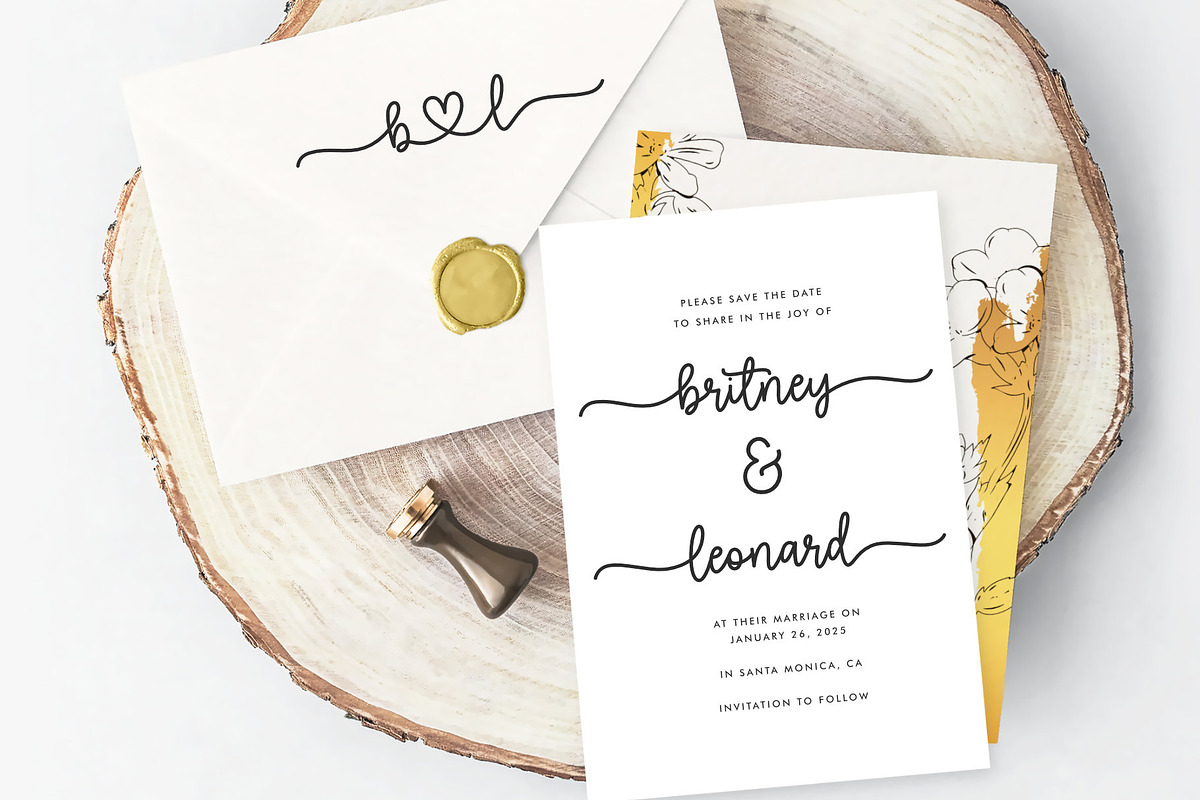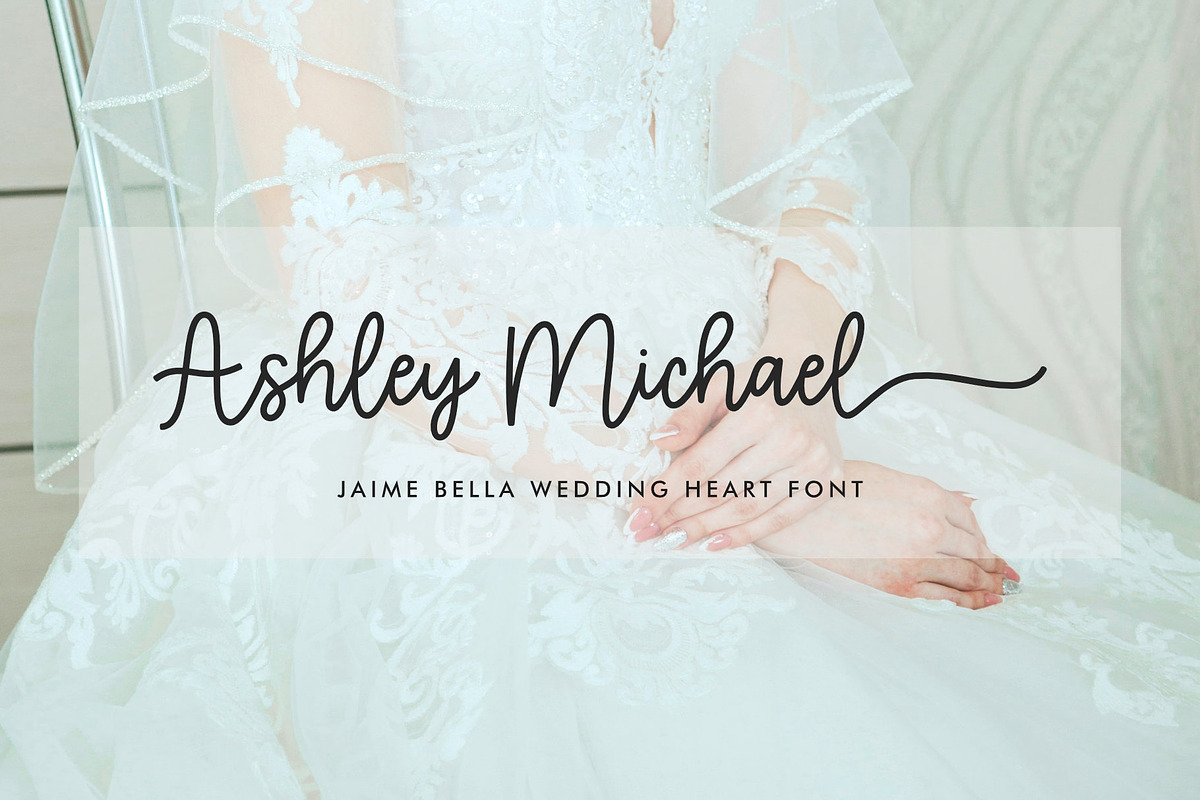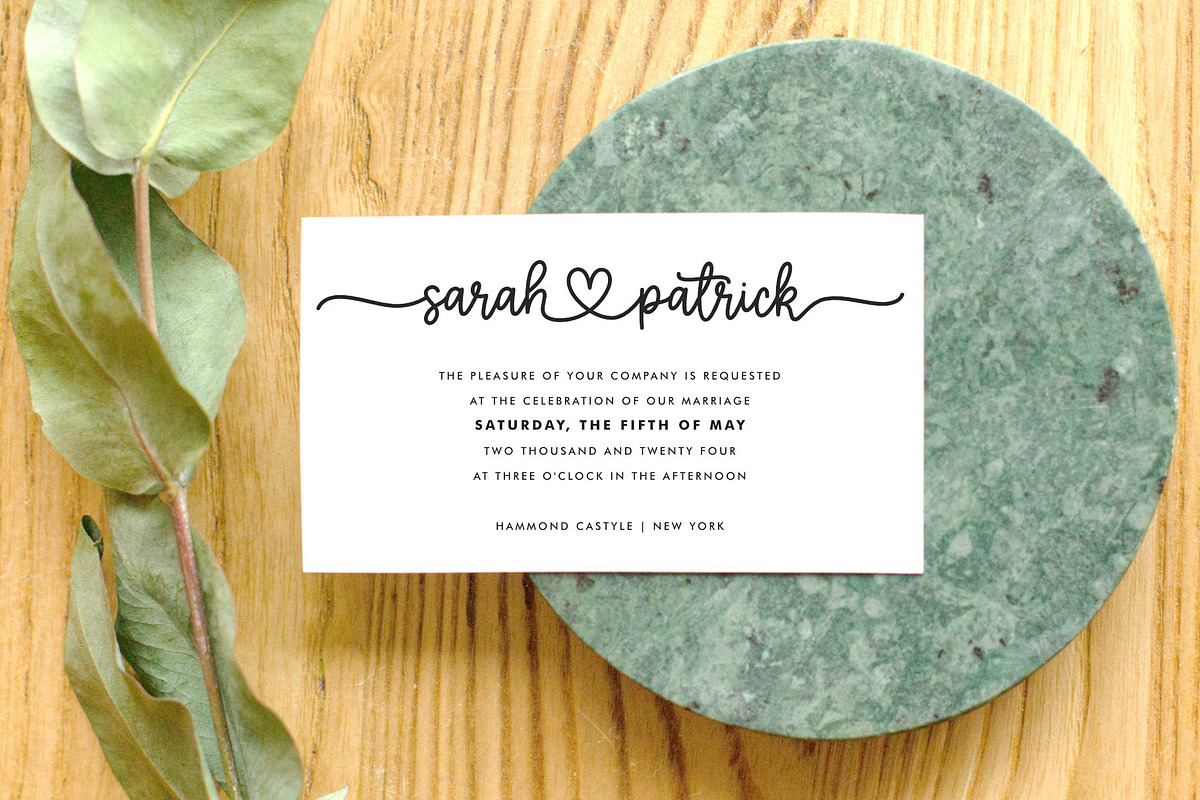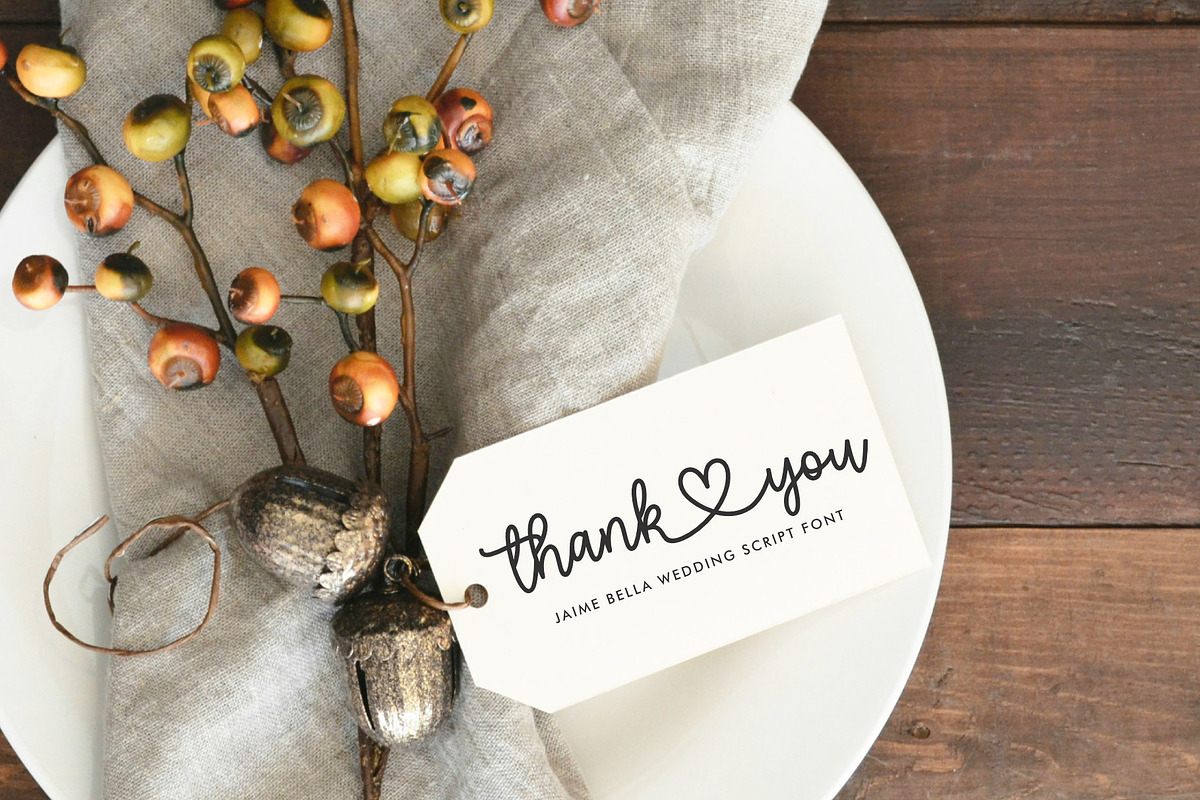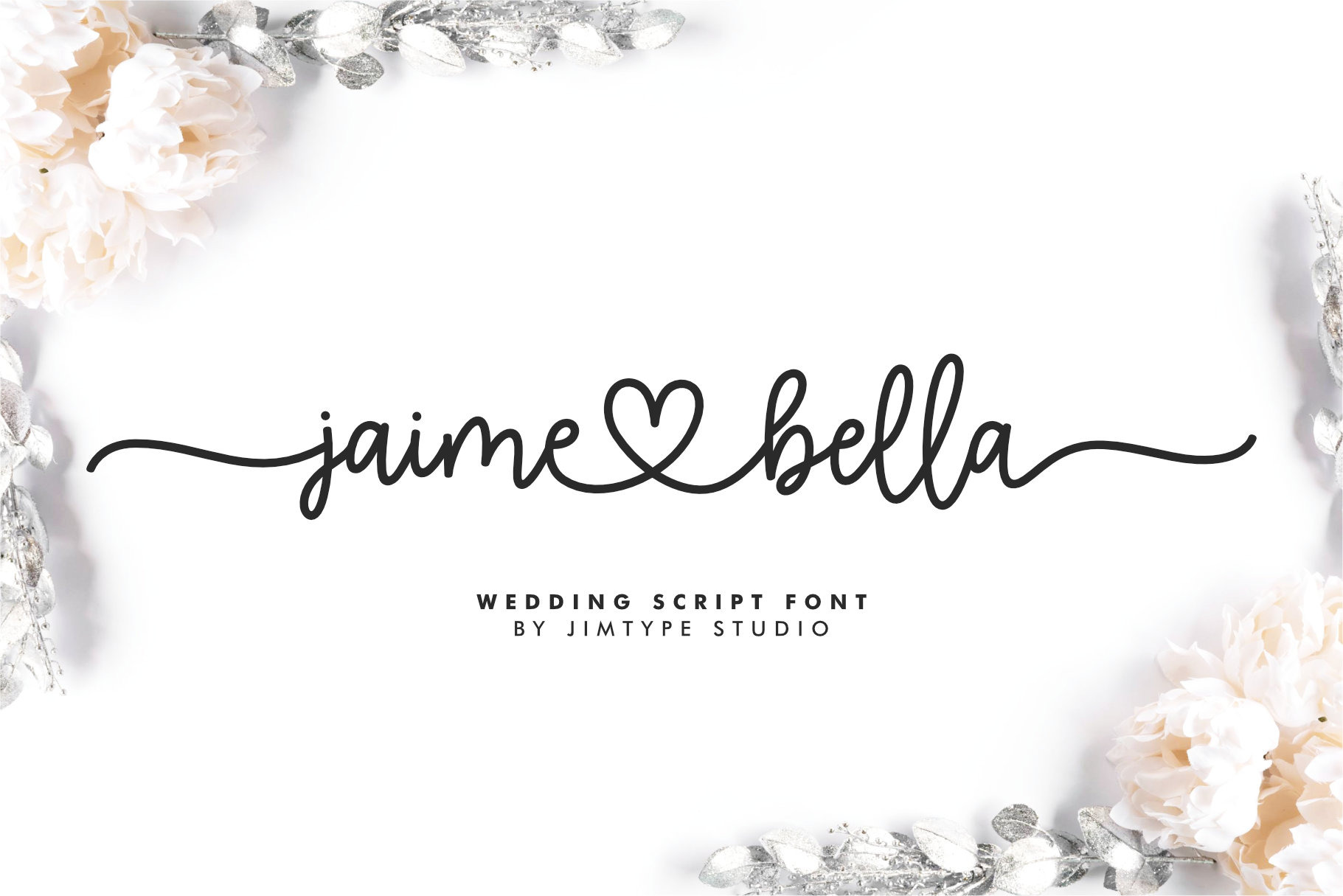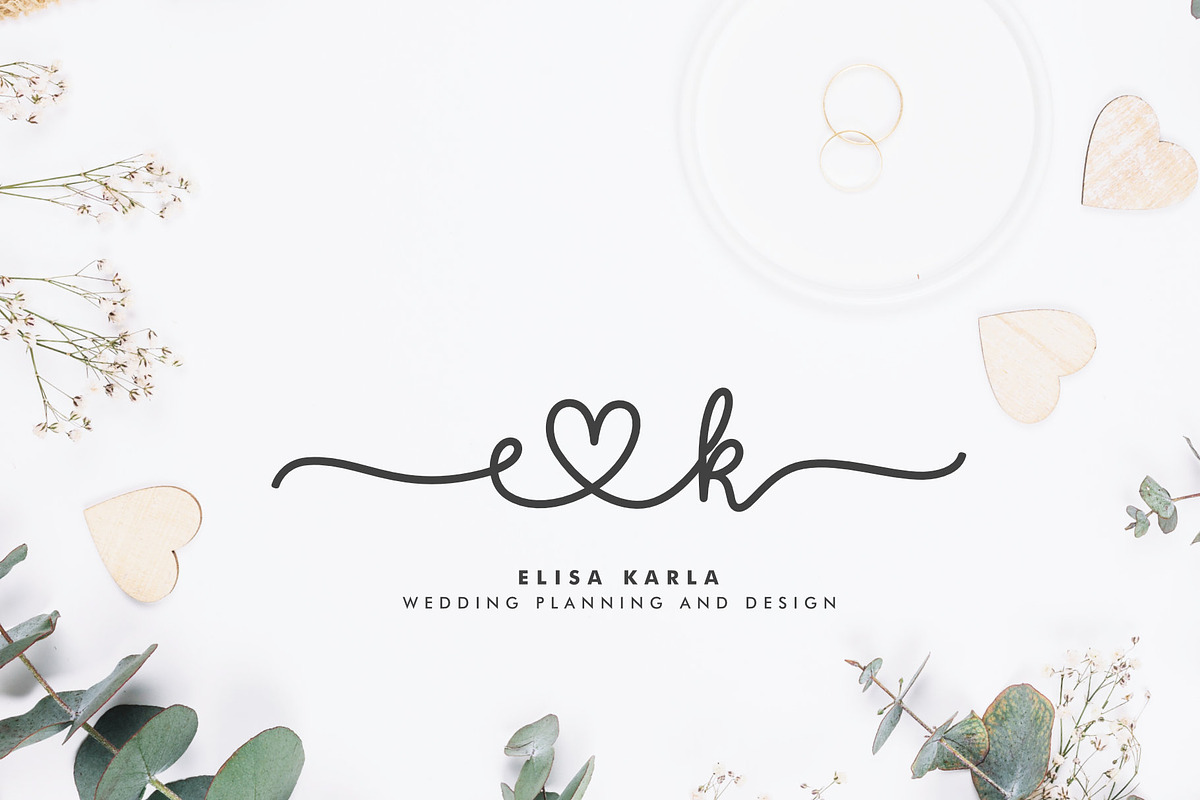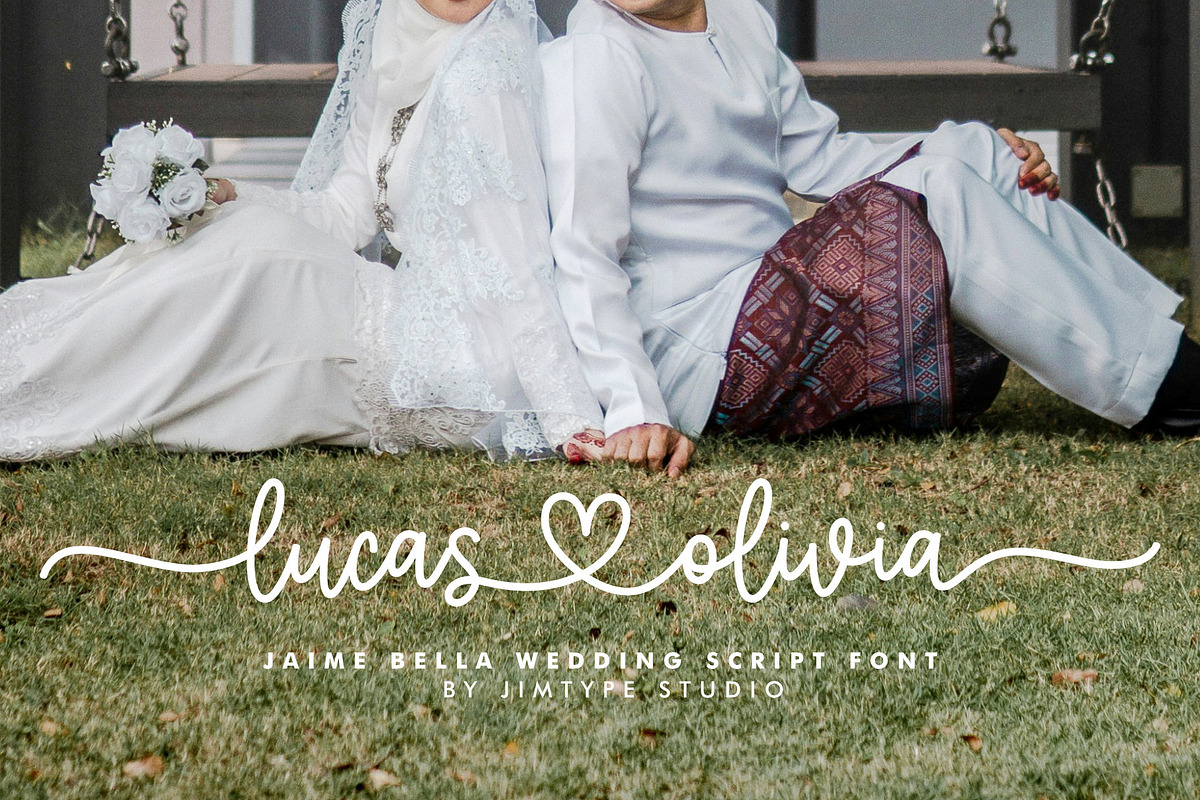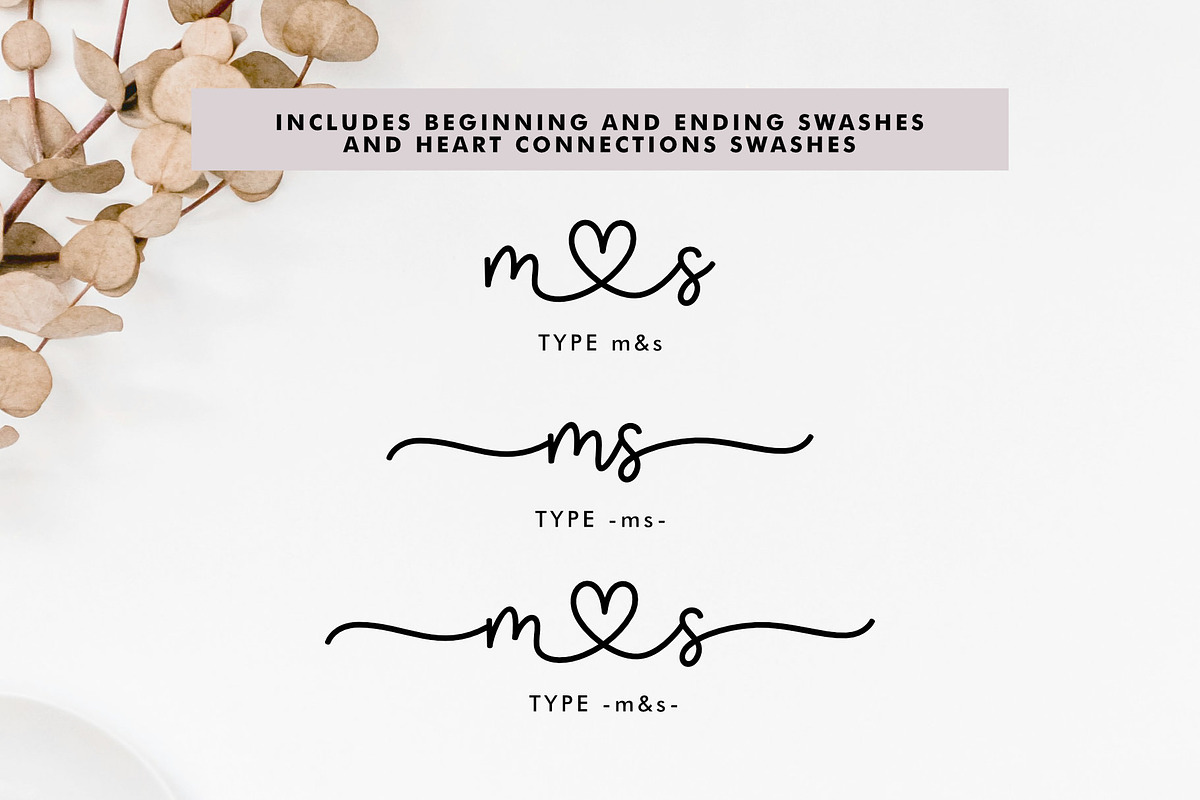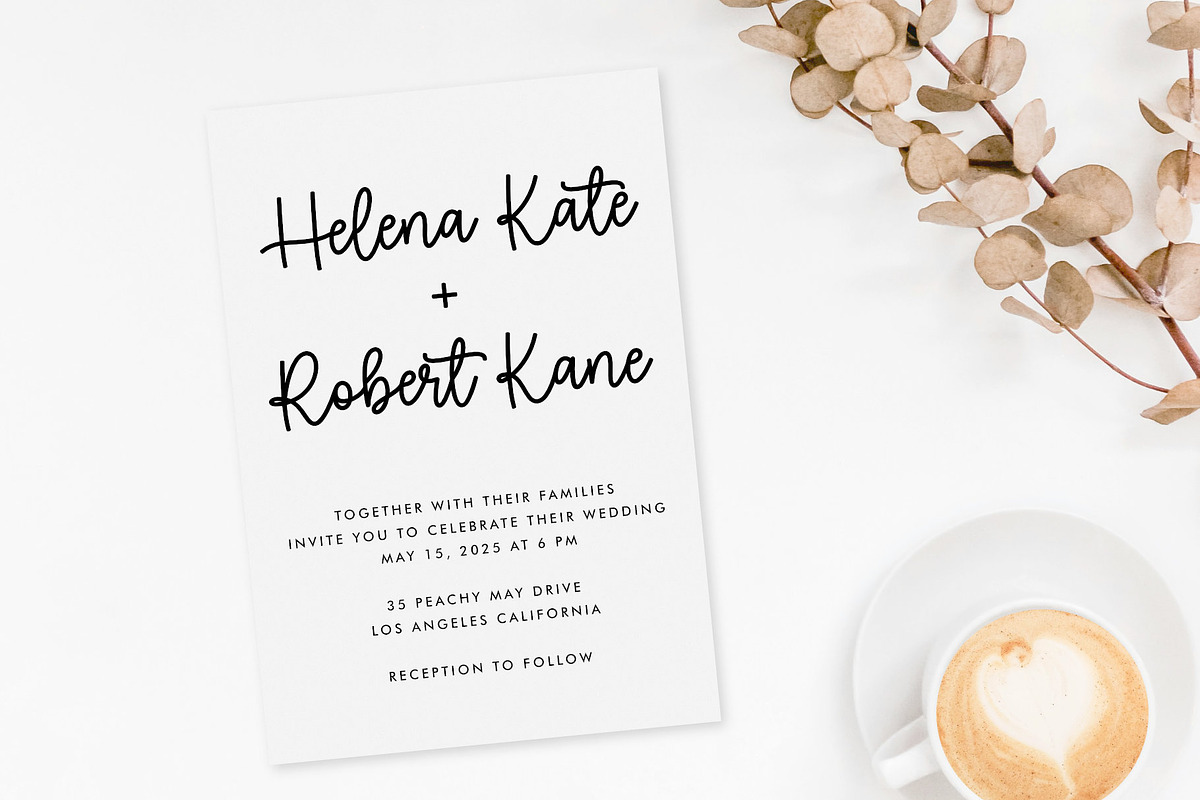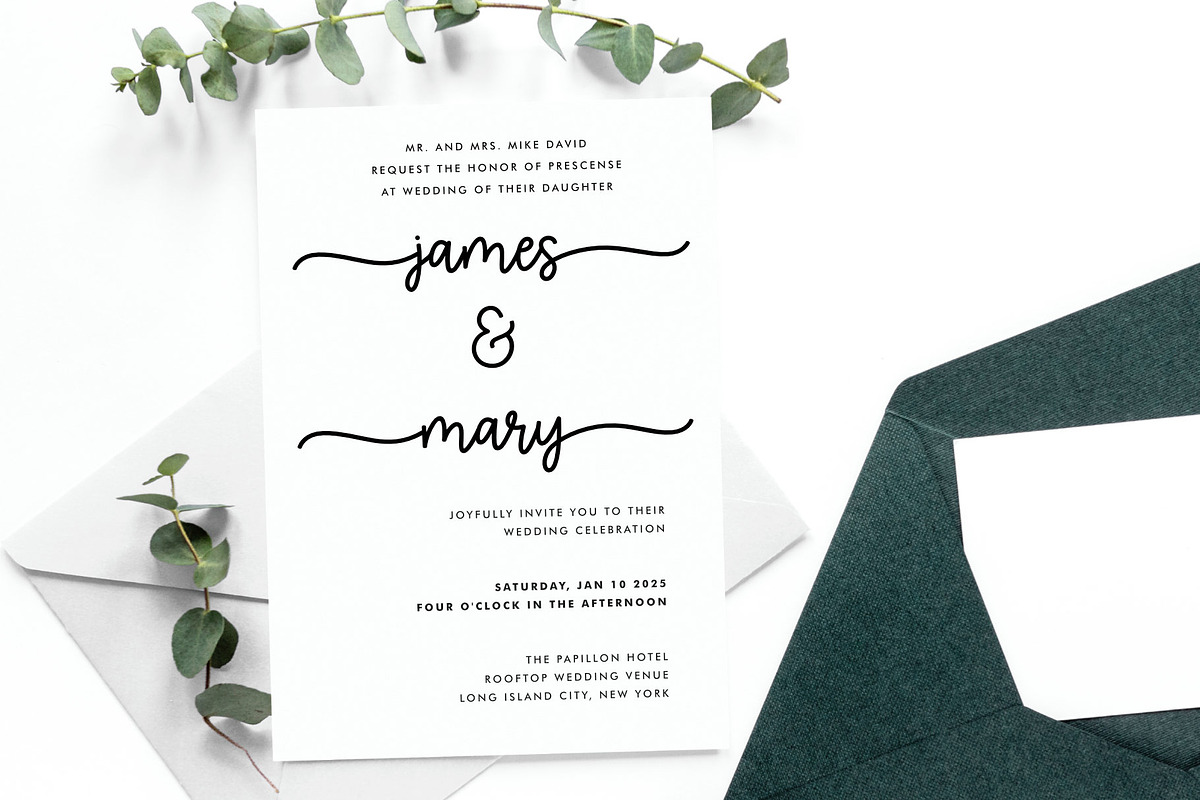
Jaime Bella - Wedding Heart Font
Introducing the Jaime Bella Font. Inspired by the French word for "I love," we anticipate widespread appeal and believe it is ideally suited for wedding projects celebrating romantic. The Jaime Bella Font embodies the spirit of love and is the perfect choice for projects demanding a combination of romance and elegance. Its suitability extends to weddings, branding, and designs requiring a heartfelt touch.
Use the following combos for : lowercase heart connect type: a& (lowercase letter ampersand) For example: amelia&amanda
lowercase beginning and ending swash type: -a or a- (hyphenminus lowercase letter or lowercase letter hyphenminus) For example: -amelia- -amanda-
You can also combine swash beginning and ending with heart connect, with a combo
For example: -amel&lia-
(hyphenminus lowercase letter ampersand lowercase letter)